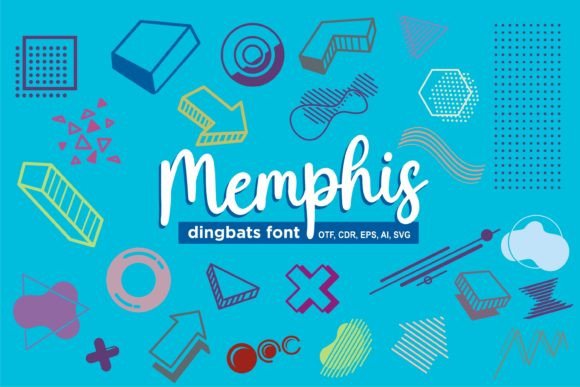
**Introducing Memphis: The Ultimate Dingbats Font for Eye-Catching Appeal on Red Backgrounds**
Step into the realm of visual enchantment with Memphis, the captivating dingbats font that will transform your designs into masterpieces. Crafted with meticulous care by the renowned onoborgol, Memphis is a treasure trove of delicate symbols that will dance across your creations, leaving an unforgettable impression.
Whether you're crafting social media posts that demand attention or designing stunning websites that allure visitors, Memphis possesses the enchanting power to elevate your work to new heights. Its intricate details and playful charm will add a touch of whimsy to your projects, captivating your audience with each stroke.
Immerse yourself in a boundless universe of creative possibilities. With Memphis at your fingertips, you'll effortlessly create logos that radiate personality, headers that command attention, and marketing materials that ignite imaginations. The versatility of this font knows no bounds, making it an indispensable tool for any designer seeking to make a lasting impact.